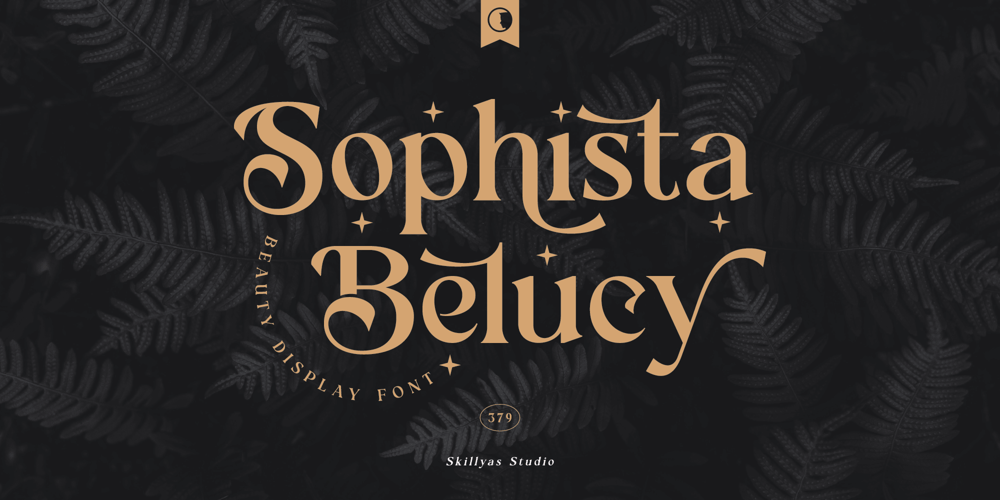
Sophista Belucy Font Family was designed by ahmad faizin and published by skillyas studio. Sophista Belucy contains 1 styles and family package options. Sophista Belucy is a Beauty display font inspired by the classic freewriting style with a bold and shining feel.Sophista Belucy comes with 383 glyphs, including special uppercase and lowercase letters, beautiful alternate characters, and ligatures.Sophista Belucy is perfect for any design needs: branding, logos, handwritten quotes, product packaging, merchandise, blog design, modern advertising design, invitation, Art Quote, Home decor, Book/Cover Title, Invitation, special events, birthdays, custom mug, pillow, and many more.FEATURES:• Additional Accents• Multilingual Support• Kerning• Alternates• LigaturesCOMPATIBLE OS:• Mac OS• Windows